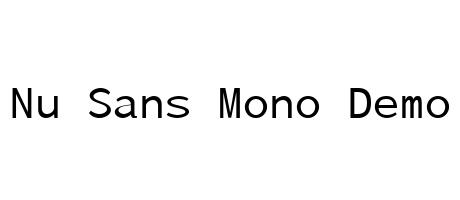
Nu Sans Mono
By Martin P. Pfeiffer
Nu Sans Mono Demo: A crisp, clean, and modern typeface. Its monospaced nature provides a consistent, almost robotic feel, while the "Nu Sans" element hints at a slight humanist touch. The overall effect is a blend of technical precision and subtle elegance, suitable for coding, displays, or where clarity is key.